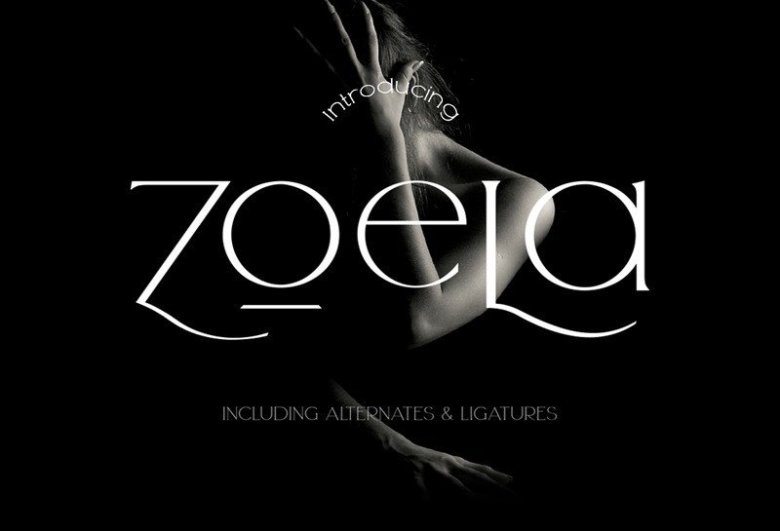
Zoela Serif Font
Zoela Serif Font is modern serif font, every single letters have been carefully crafted to make your text looks unique. It is a stylish serif display fontcreated by Dxsign. It comes in regular style and includes multilingual, ligatures, alternate letters, numbers and punctuation. You can create custom typography for your projects likes magazine covers and titles.